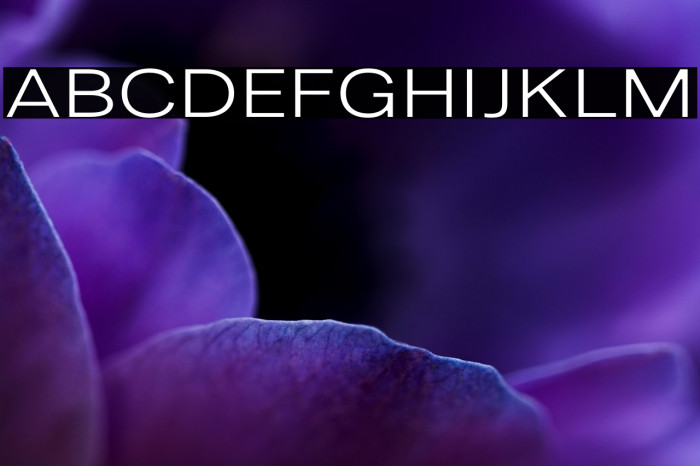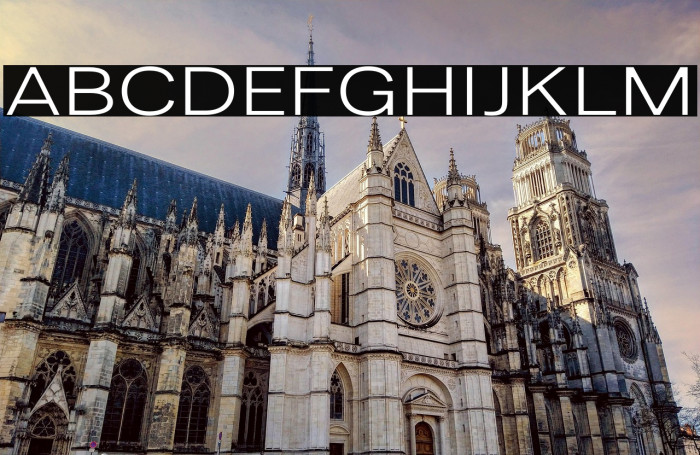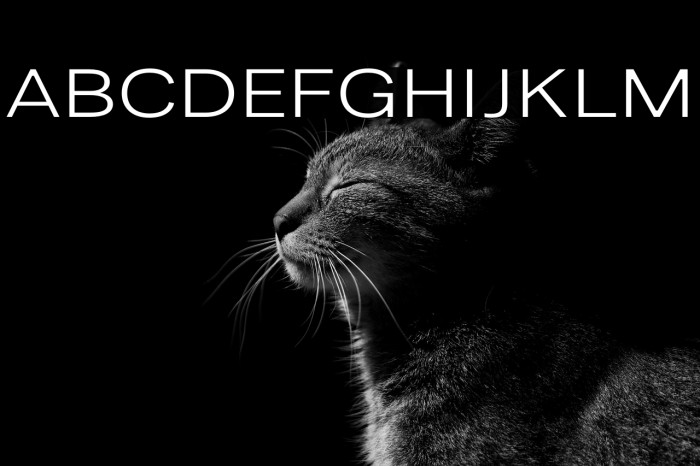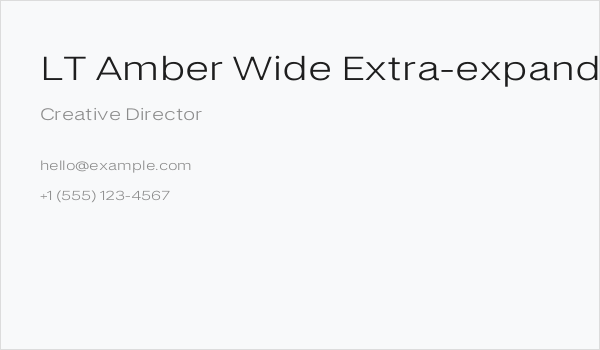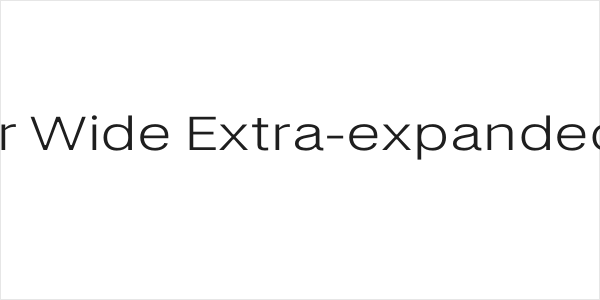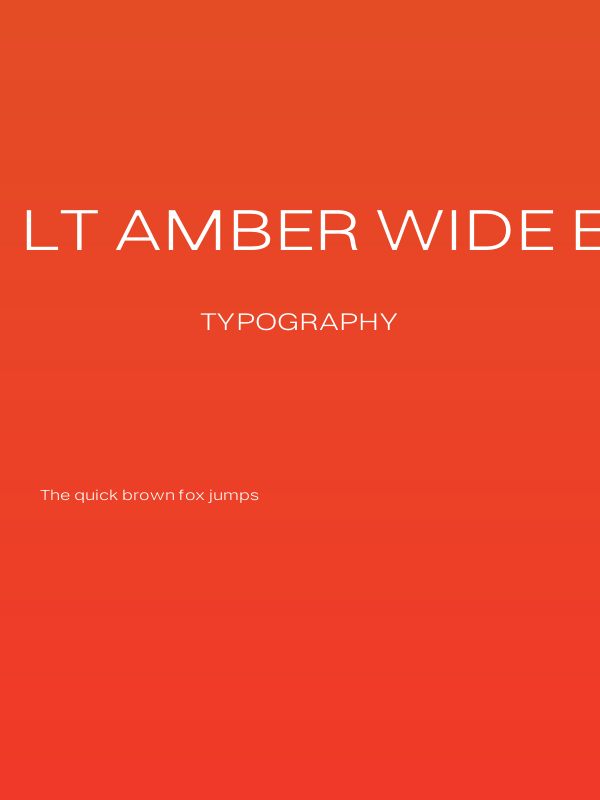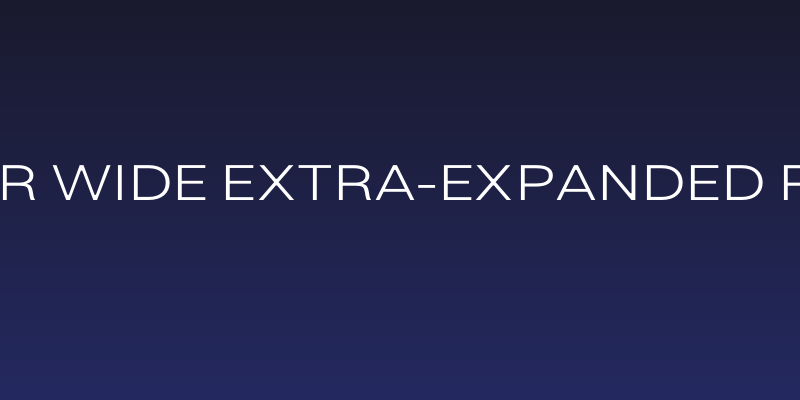
LT Amber Wide Extra-expanded Regular Font
LT Amber Wide Extra-expanded Regular Description
This typeface features a clean and modern sans-serif design with wide, extra-expanded letterforms. The characters are evenly spaced, providing a balanced and open appearance. The strokes are consistent in thickness, offering a low contrast that enhances readability. Its geometric shapes and smooth curves give it a contemporary feel, making it suitable for various design applications. The font includes a full set of uppercase and lowercase letters, numerals, and a range of special characters, ensuring versatility in use.
| Use Case | Headlines, Branding, Digital Interfaces |
| Proposed Projects | Ideal for branding, advertising, headlines, and digital interfaces where a modern and clean look is desired. |